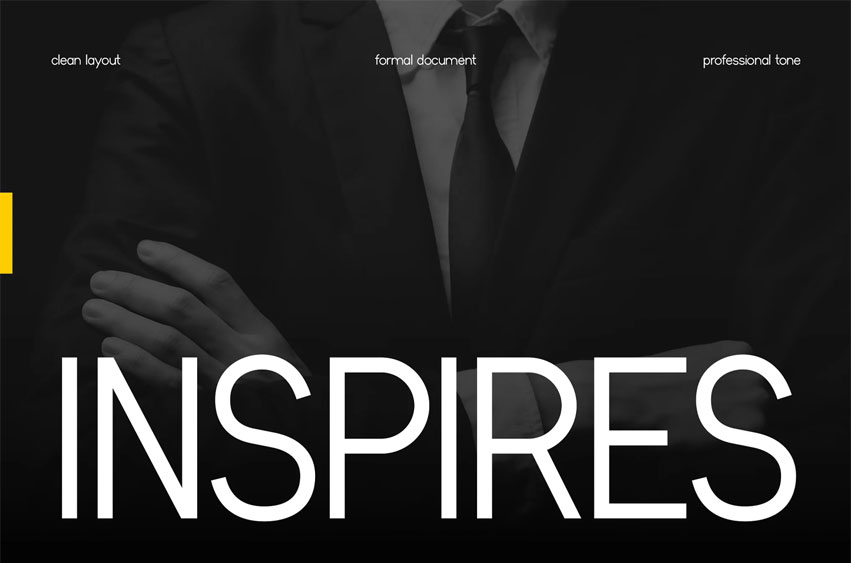
Inspires Font
Inspires Font is a modern geometric typeface for clean editorial branding, delivering clarity and confidence through balanced proportions, smooth curves, and subtly sharp terminals that create a refined, structured visual rhythm. The vibe feels elegant yet functional, making it ideal for corporate presentations, startup branding, and modern Instagram visuals. Its geometric construction ensures consistency, while the open spacing enhances readability across both print and digital layouts. Perfect for branding, UI design, business decks, and minimalist packaging, Inspires brings a professional tone without feeling rigid.
Designed for designers who need clarity and impact, Inspires fits seamlessly into branding systems, presentation slides, editorial layouts, and app UI. It helps communicate ideas with precision while maintaining a modern and trustworthy tone. Whether you are building a startup identity, designing a pitch deck, or crafting a sleek poster, this typeface supports your goal: clear messaging that feels confident and globally relevant. The multilingual support (67 languages) expands your reach across markets without sacrificing visual consistency.
• Clean Geometric Structure Carefully crafted shapes create a stable and modern visual identity.
• Balanced Proportion & Flow Each letter maintains harmony, improving readability in long texts and headlines.
• Minimal Yet Expressive Simple forms with subtle personality help designs feel professional but not cold.
• Multilingual Support (67 Languages) Reach wider audiences with extended character sets for global communication.
• Versatile Use Cases Branding, editorial, presentations, app UI, corporate, social media, packaging